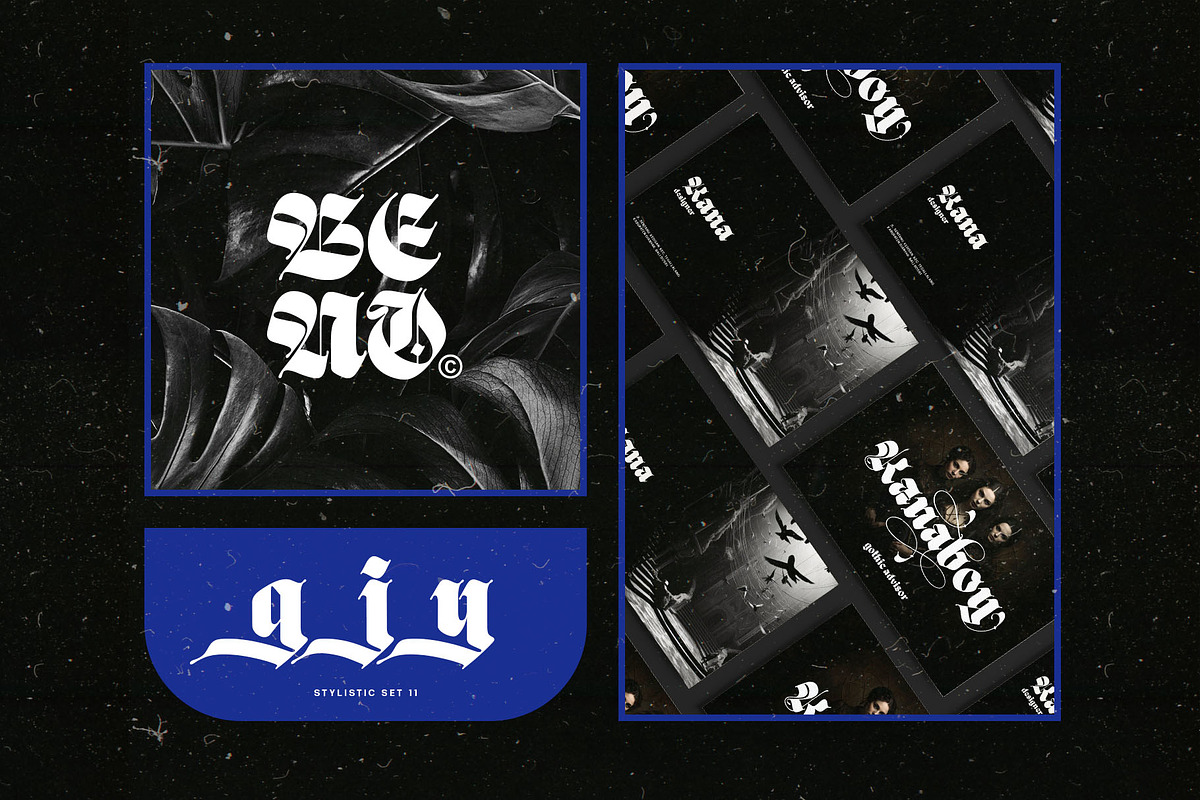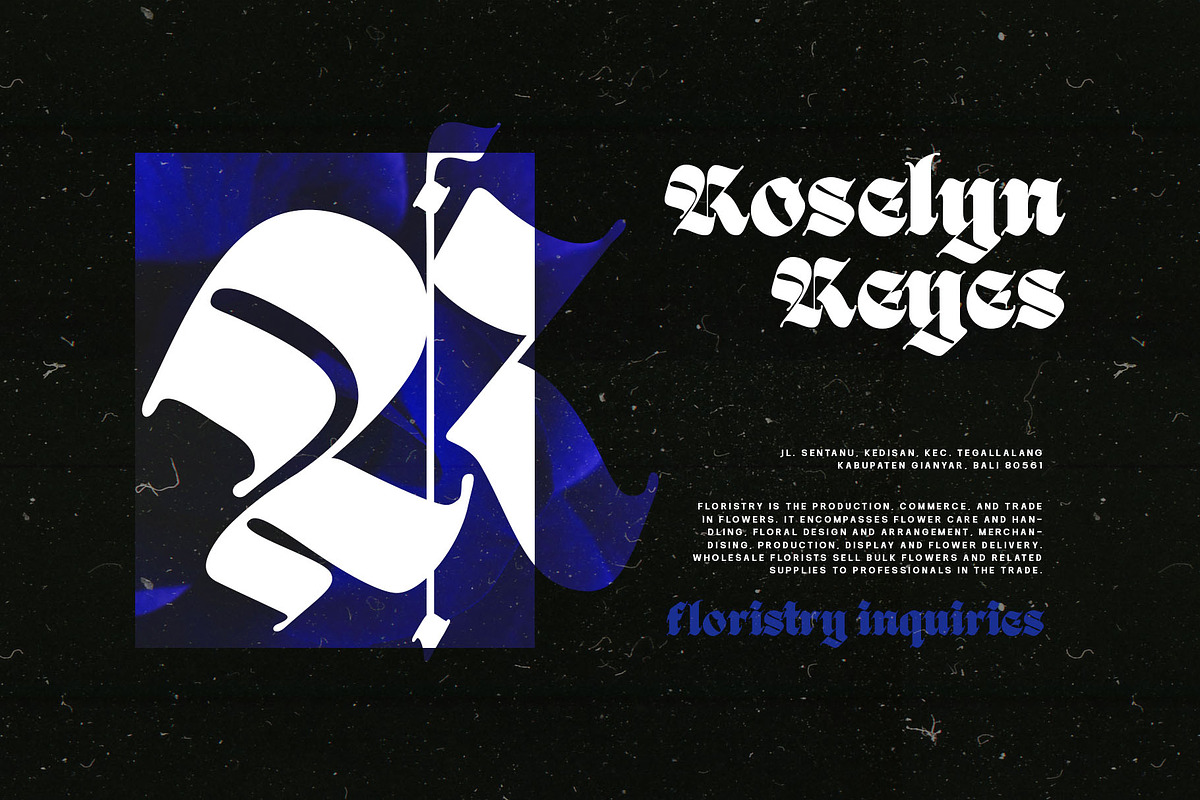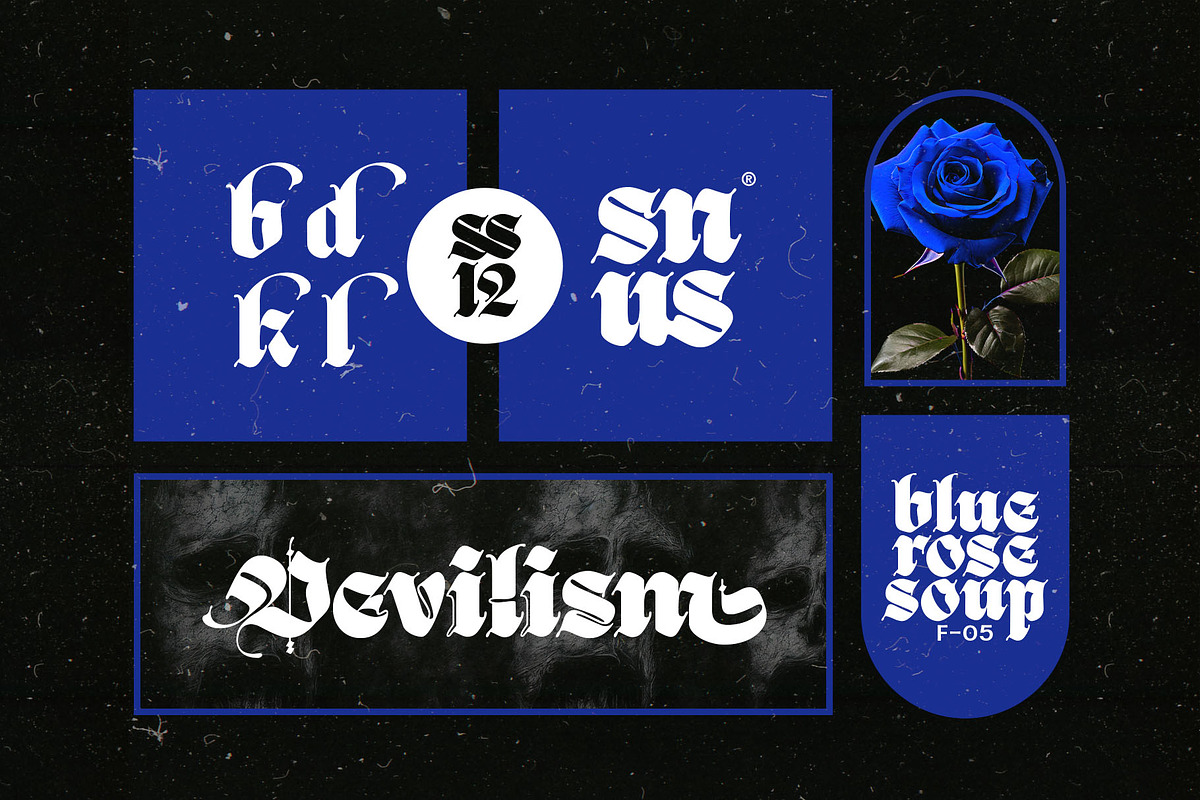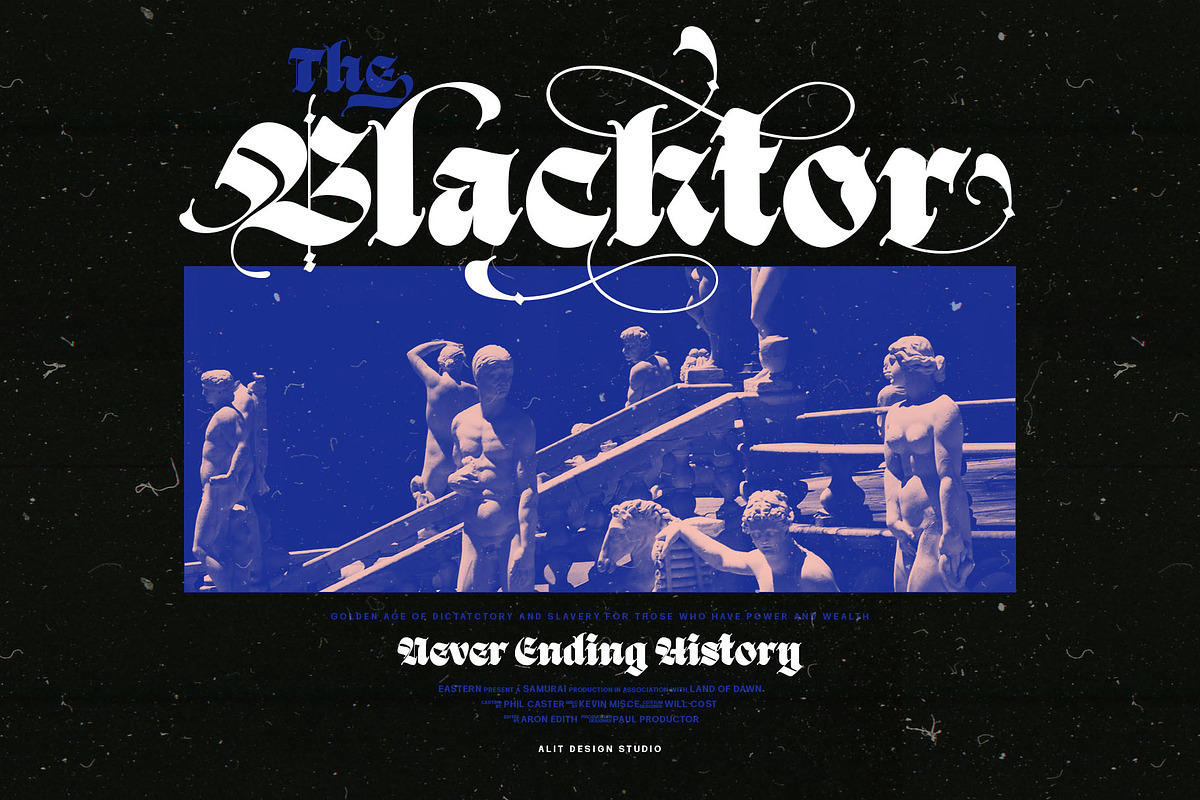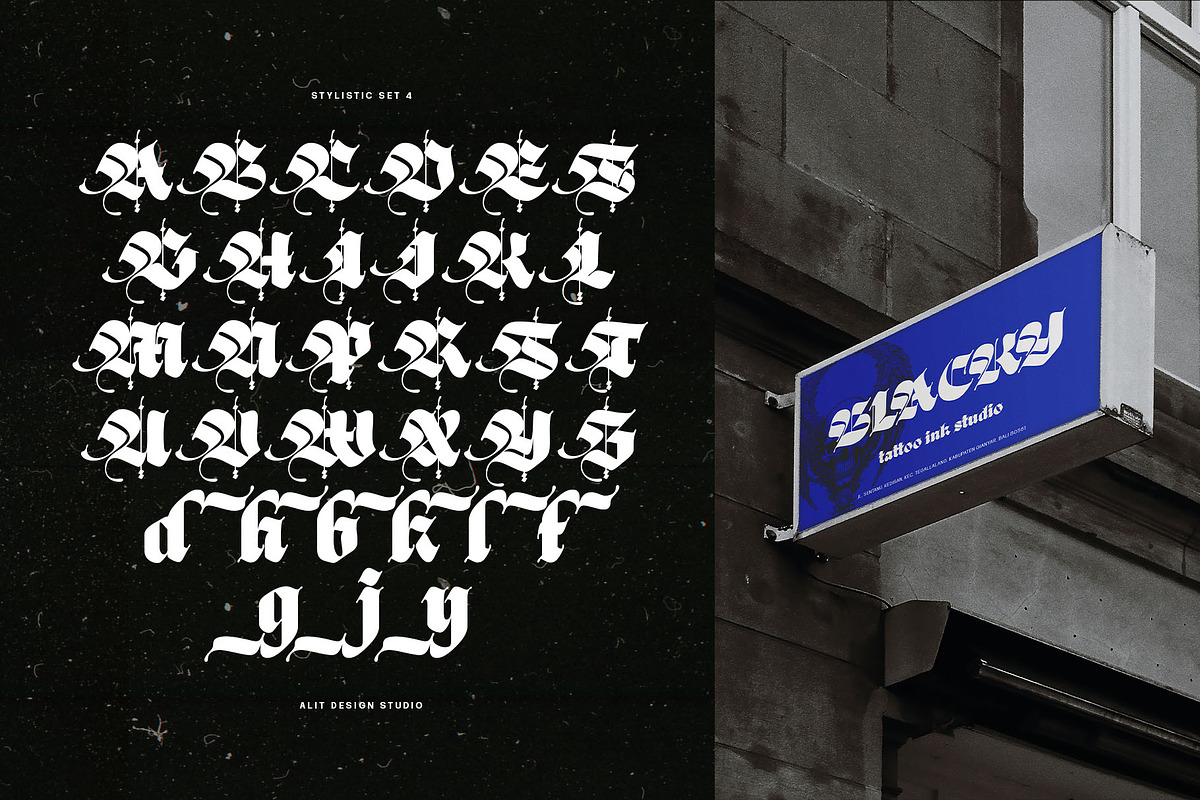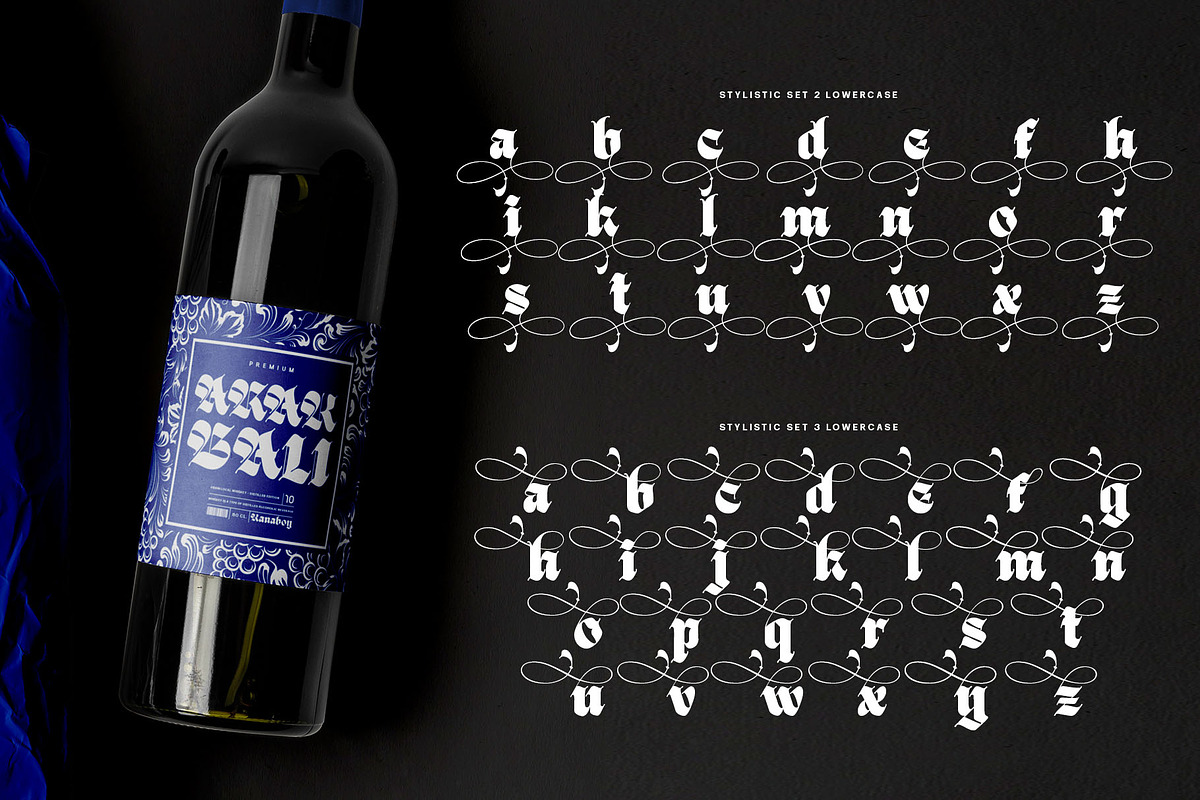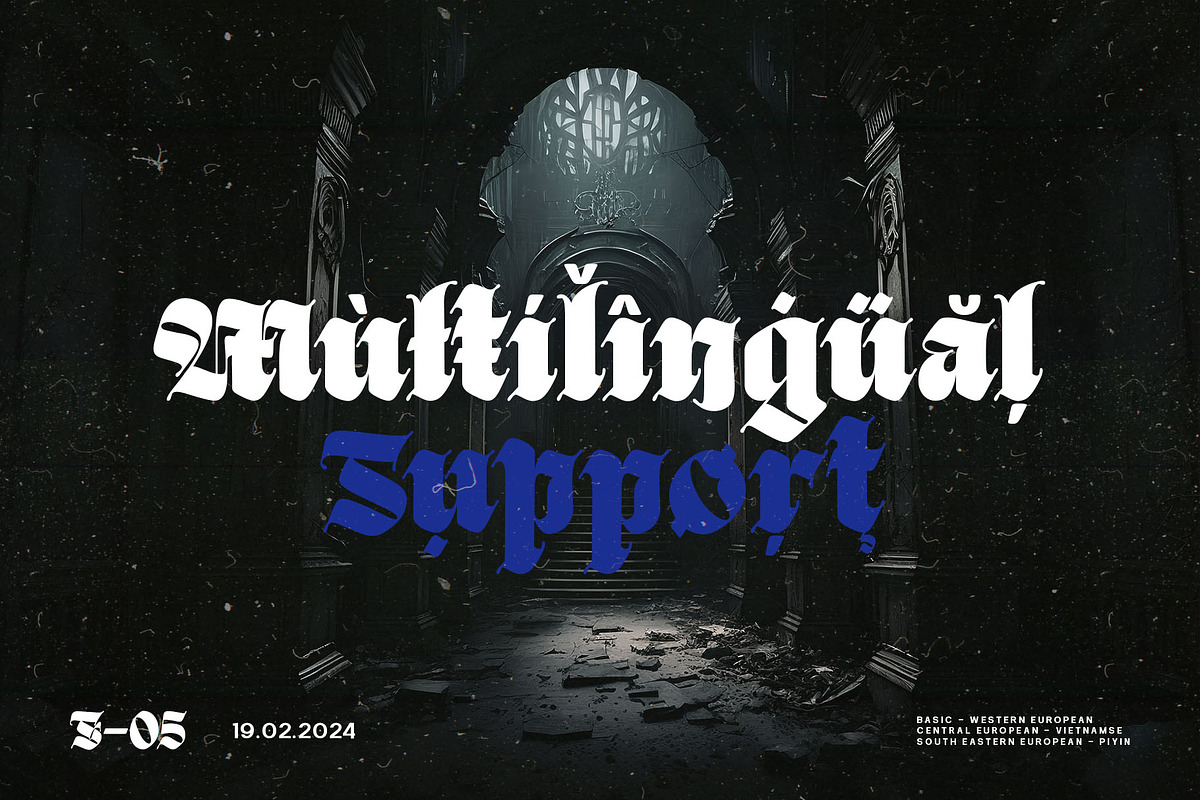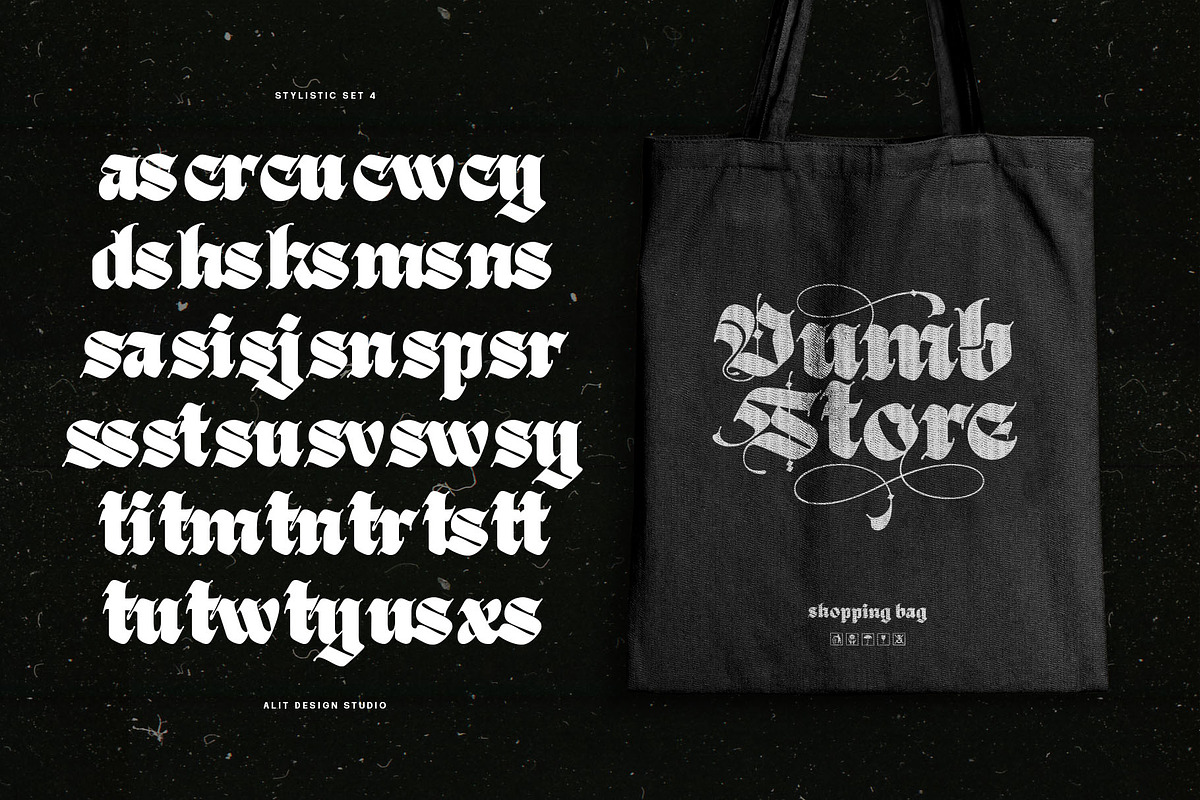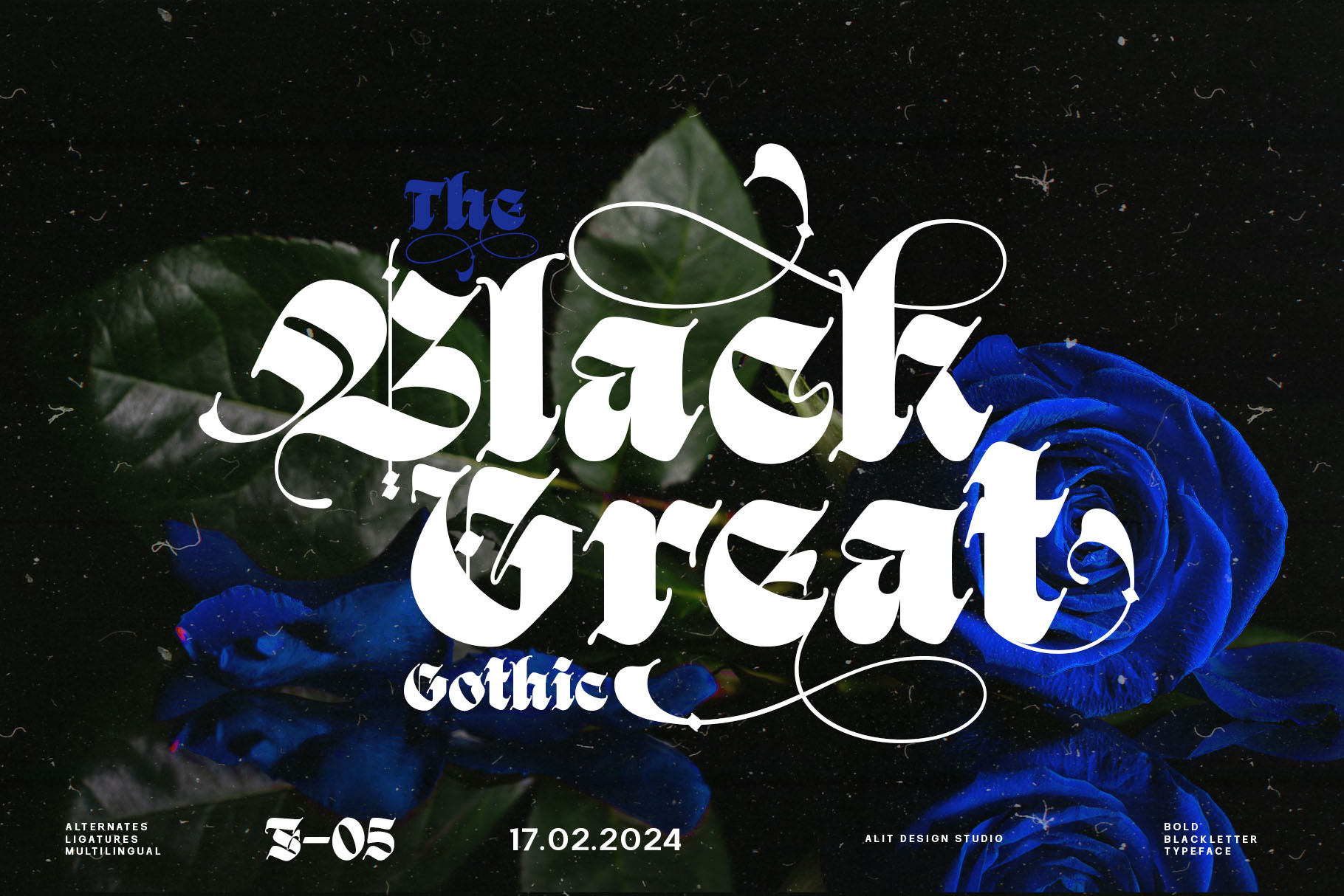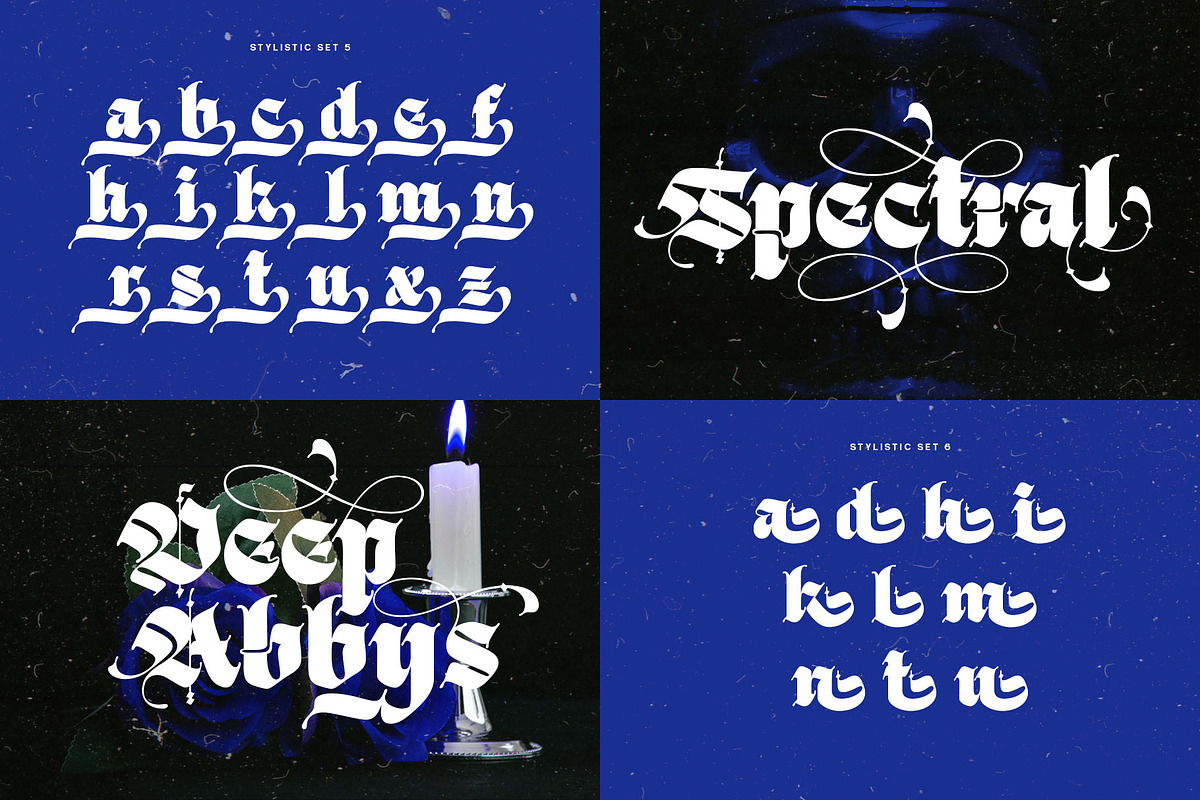
Black Great Typeface
"Black Great" is a bold and imposing Blackletter-themed font that commands attention with its thick strokes and distinctive style. Its robust appearance makes it perfect for conveying a sense of strength and authority in design projects. The font is adorned with elegant swashes, adding a touch of sophistication and flair to its overall aesthetic. With a generous count of 809 glyphs, including alternates and ligatures, "Black Great" offers versatility and allows for creative typographic expressions. It fully supports PUA Unicode, ensuring seamless compatibility and accessibility across various platforms and software. Additionally, "Black Great" provides comprehensive multilingual support, enabling users to use it effectively in a wide range of languages and writing systems. Whether used for headlines, titles, or decorative elements, "Black Great" makes a bold statement while maintaining an air of elegance and refinement.